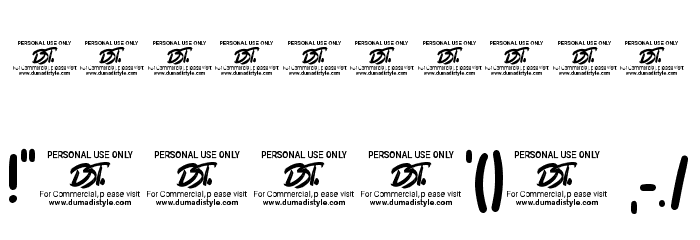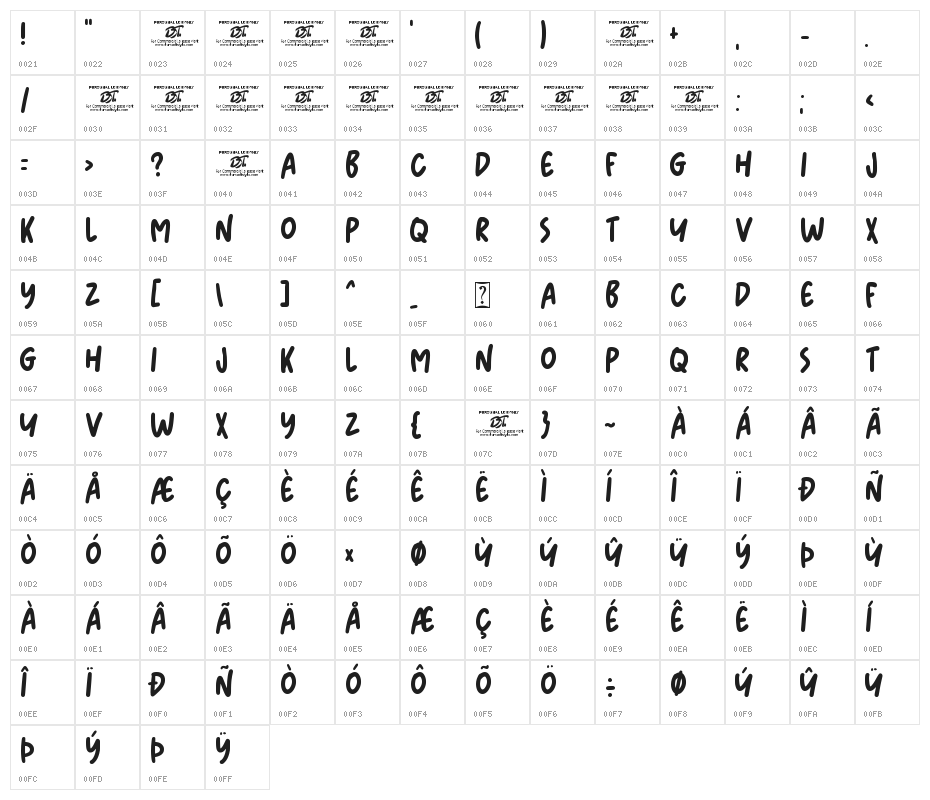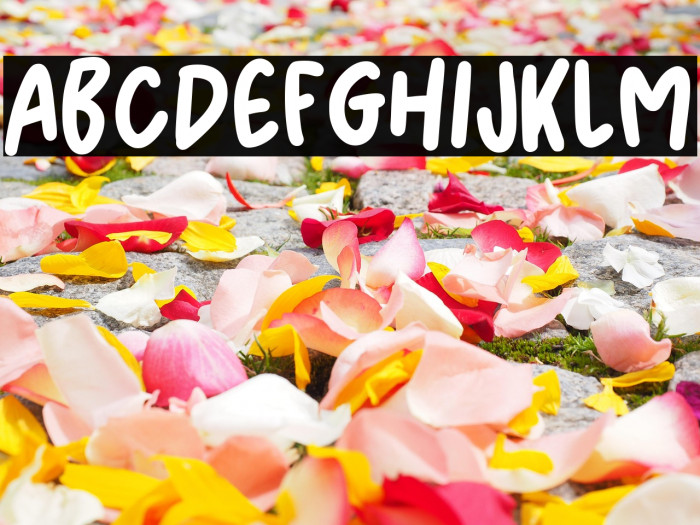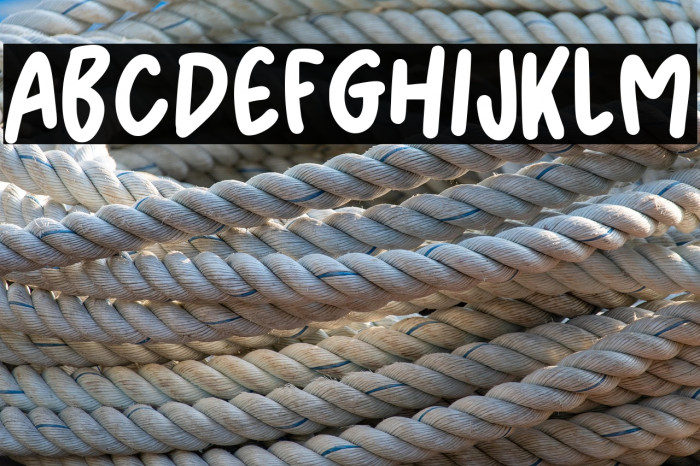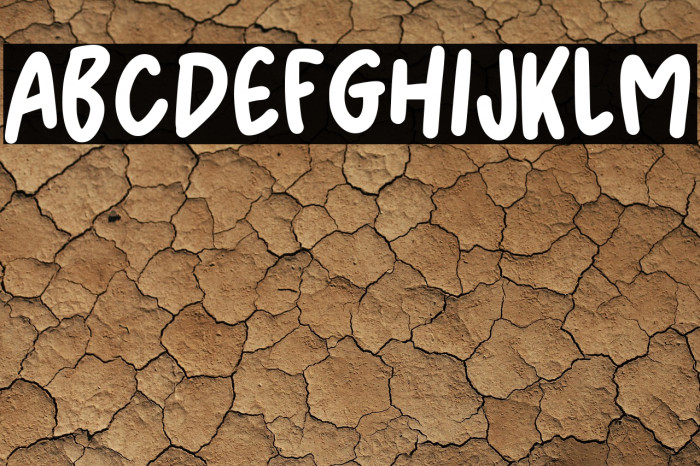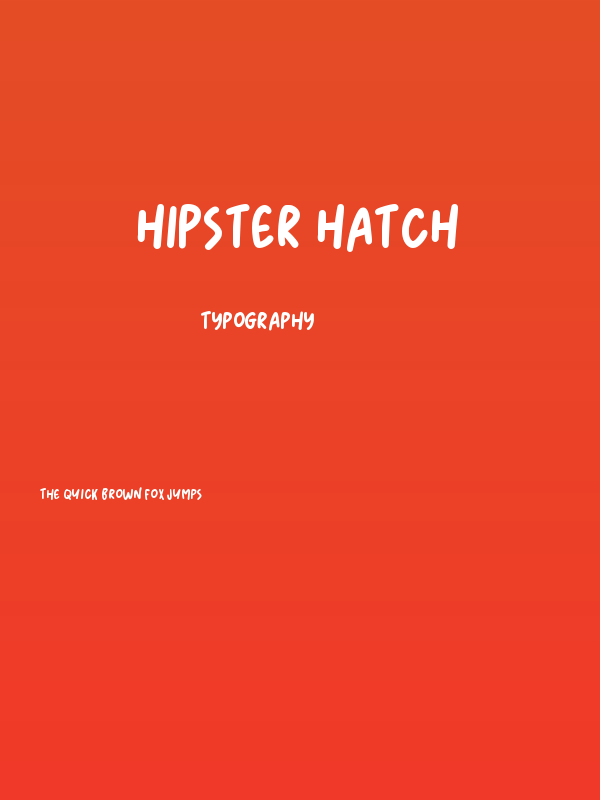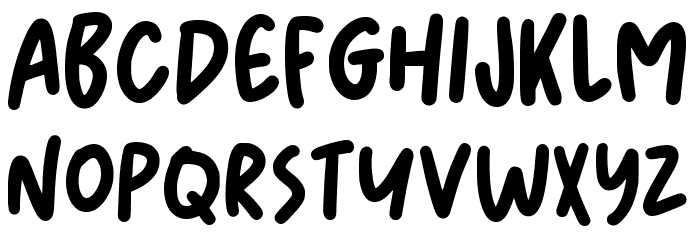
Hipster Hatch Font
Hipster Hatch Description
This font features a bold, handwritten style with smooth, rounded edges and a playful, casual appearance. The characters are slightly slanted, giving a dynamic and energetic feel. The uppercase and lowercase letters maintain a consistent style, with a uniform stroke width that adds to its approachable and friendly look. The numbers and special characters are designed to match the overall aesthetic, ensuring a cohesive appearance across all text elements. This font is ideal for projects that require a personal touch or a relaxed, informal vibe.
| Proposed Projects | Great for branding, social media graphics, posters, and invitations where a personal and informal touch is desired. |